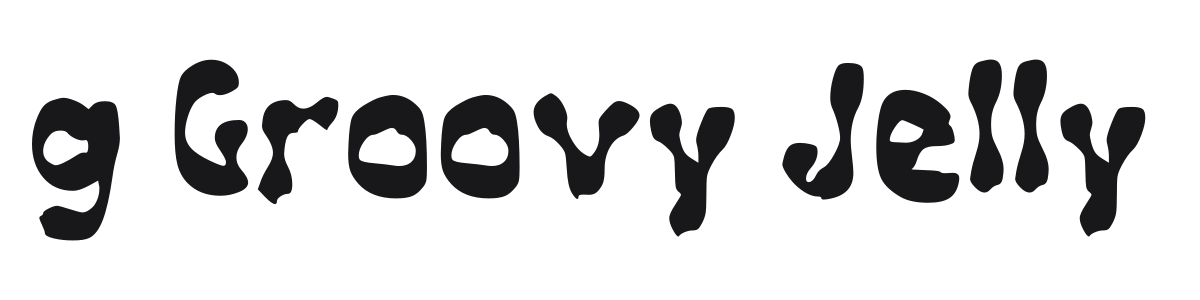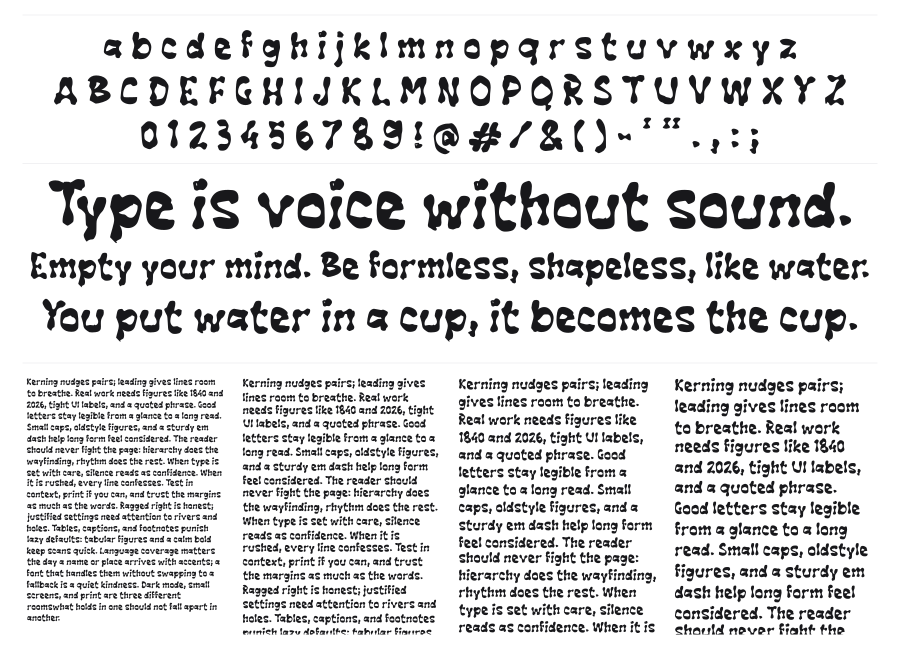
g Groovy Jelly
g Groovy Jelly is a heavy, blob-like display font inspired by the psychedelic lettering of 1960s and 70s poster art. Its inflated strokes swell and pinch into jelly-like forms with unpredictable, organic counters that give it serious funky energy. The kind of font that looks at home on a festival flyer, vintage record cover, or retro brand with personality.